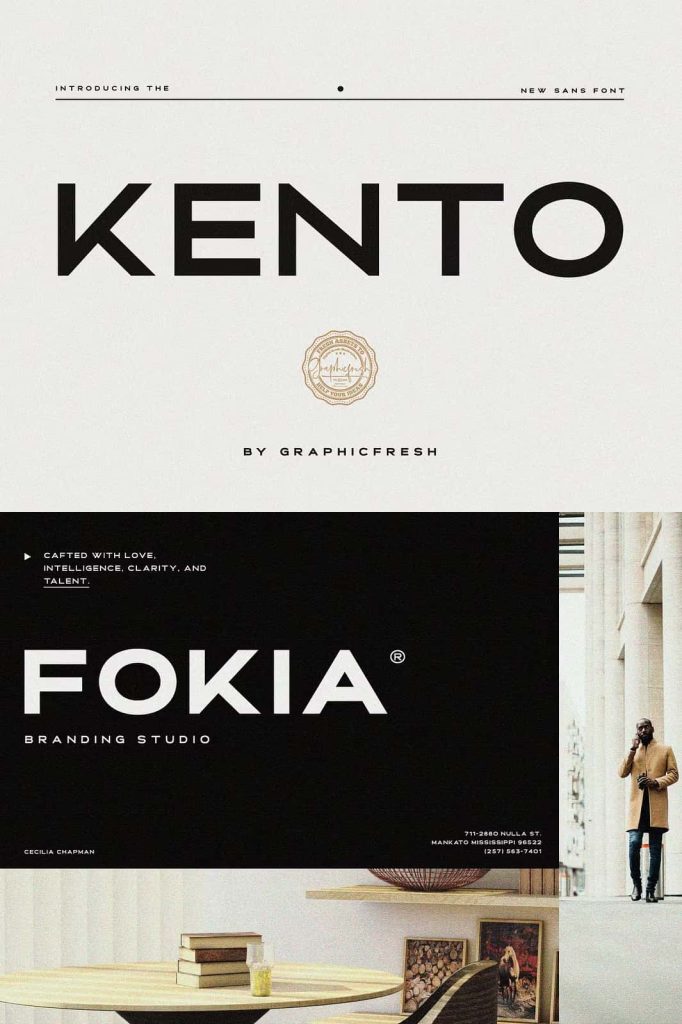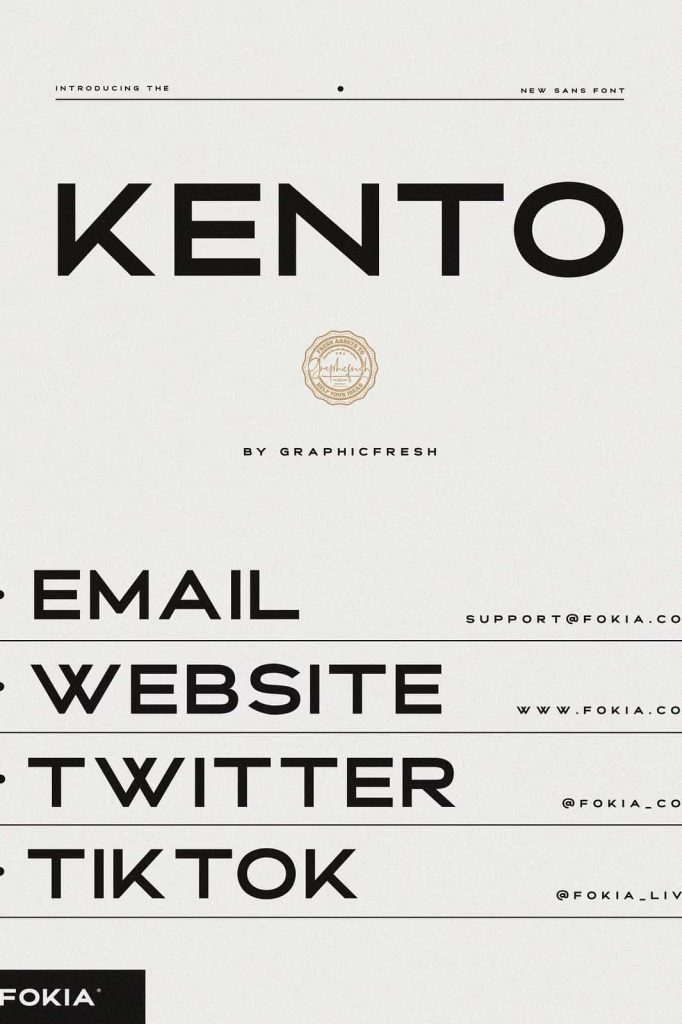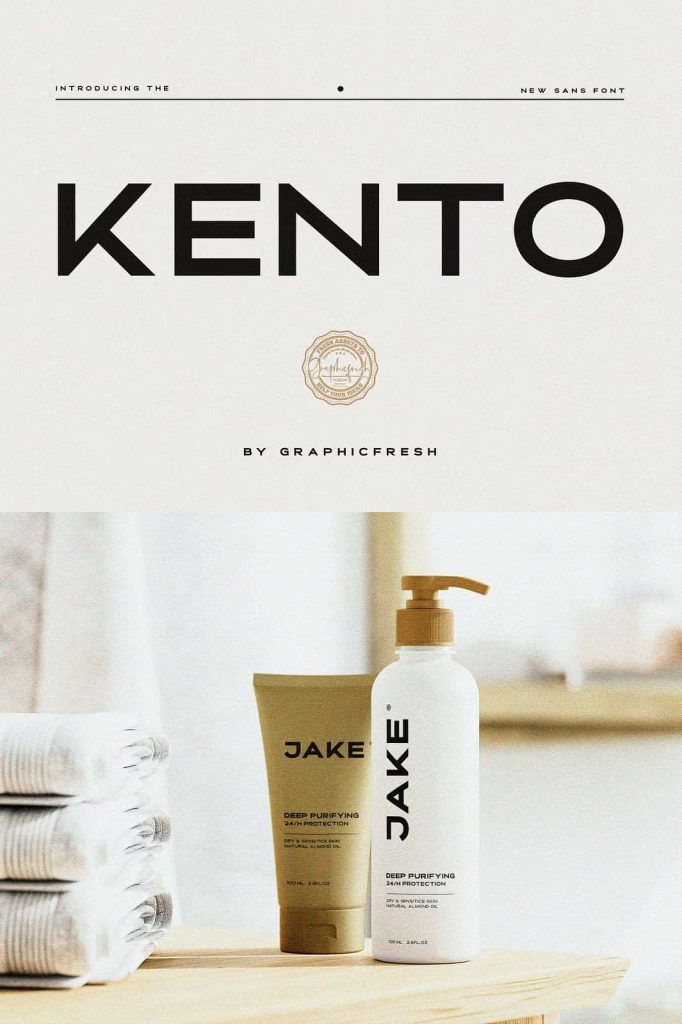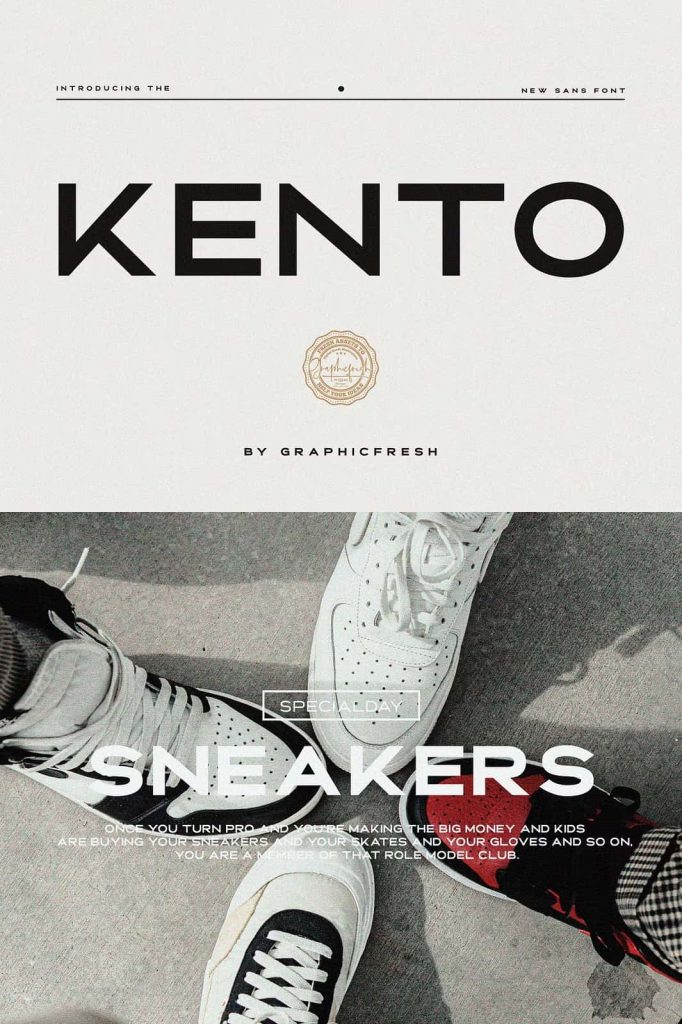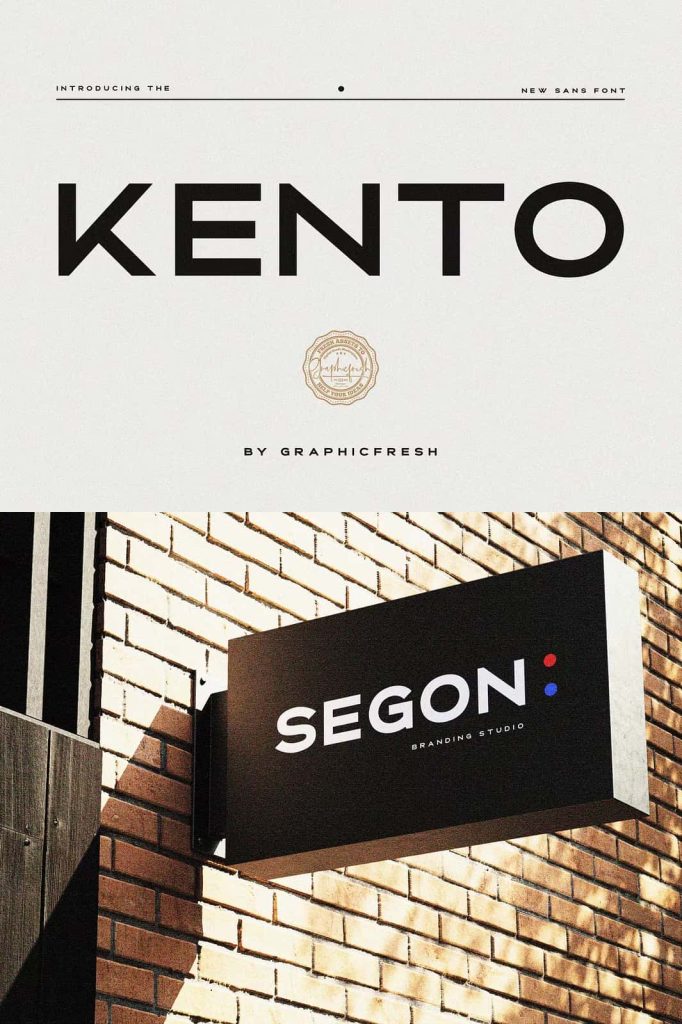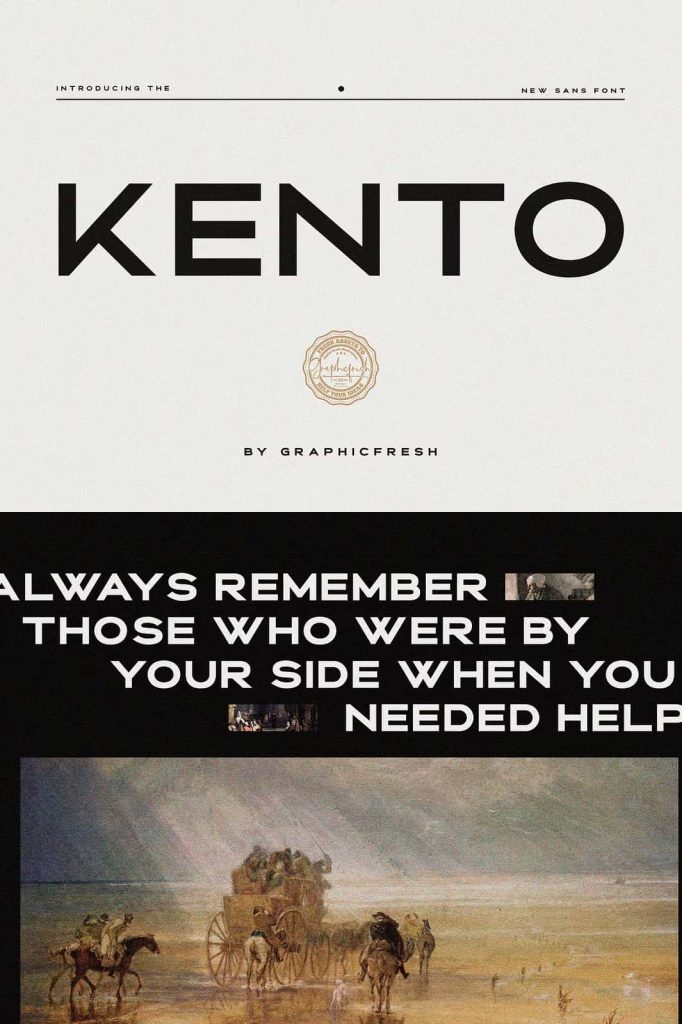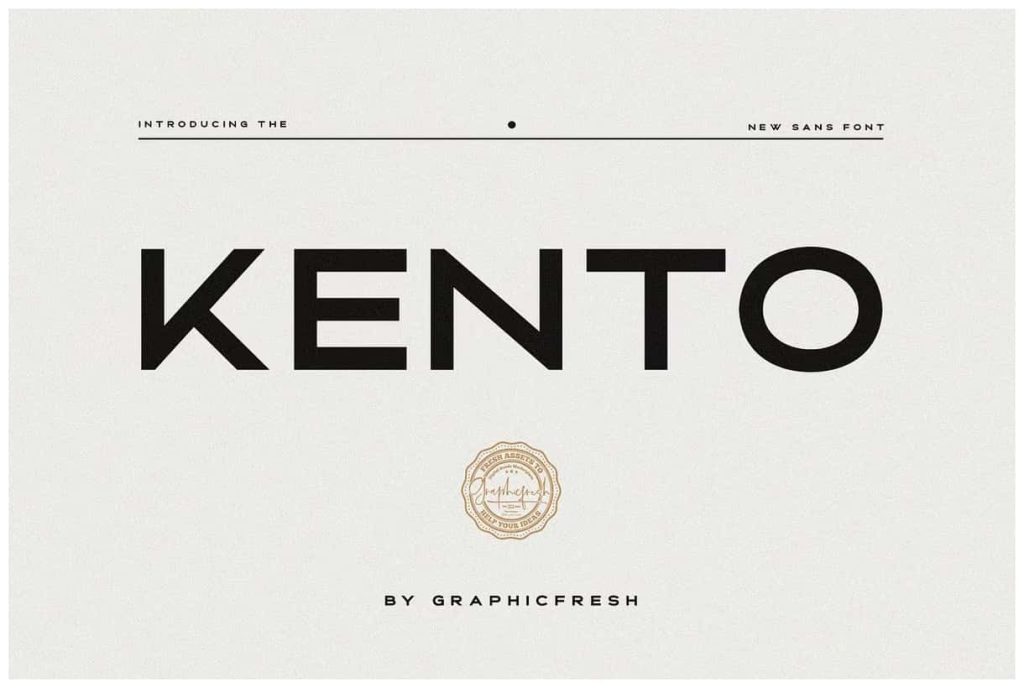
Kento – The Modern Sans FontleastedMay 4, 2025Fonts This time we present a font with a bit of a classic touch. The font is slightly stretched to the sides. Download